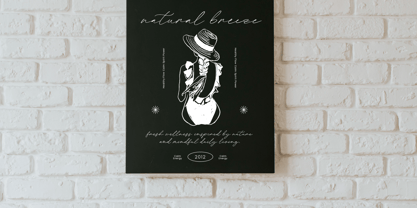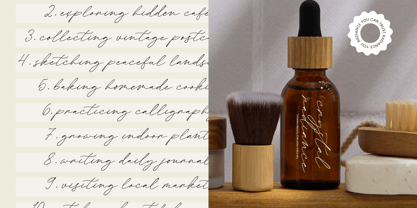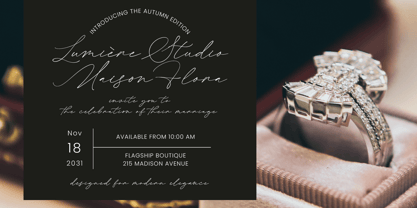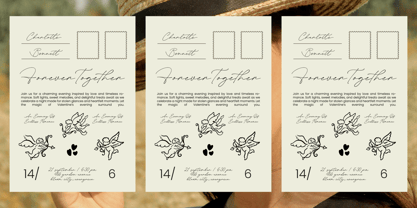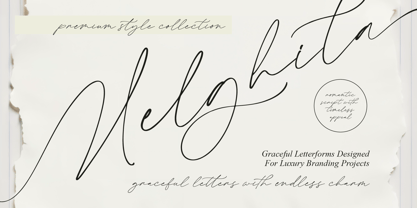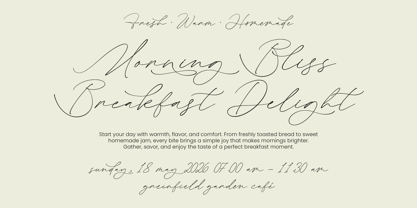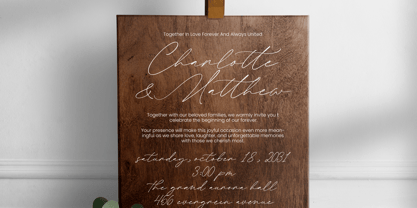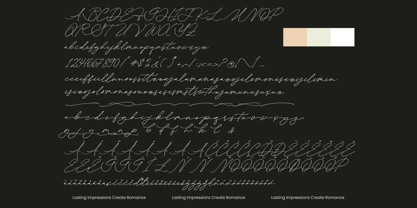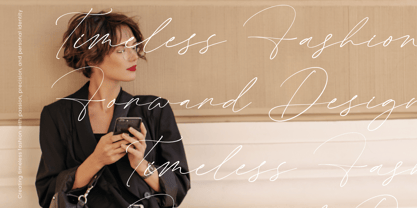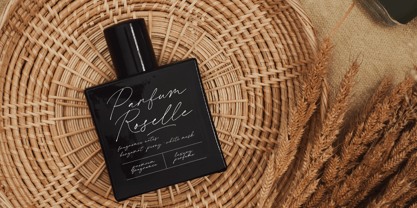
Melghita
by Letterena Studios
The Melghita Font Family was designed by Heru Utama Putra and published by Letterena Studios. Melghita contains 2 styles and family package options. More about this family
Melghita - Elegant Calligraphy Script
Elevate your creative vision with the timeless sophistication of a premium typeface designed for modern excellence. Melghita - Elegant Calligraphy Script embodies a fluid aesthetic that balances high-contrast strokes with graceful movement. This font captures the essence of organic handwriting, offering a bespoke feel that is both romantic and authoritative. It is an essential tool for creators who demand a refined visual identity and artistic flair.